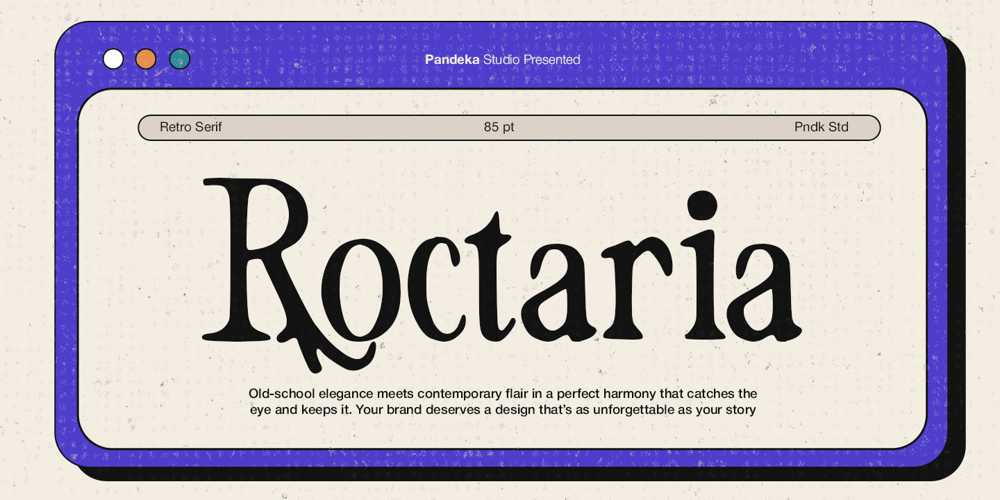
Roctaria
Roctaria font
Roctaria Font Family was designed by Sagara Nararya and published by Pandeka Studio. Roctaria contains 1 styles and family package options. Roctaria – Elegant Retro Serif TypefaceRoctaria is a vintage-inspired serif with a hand-drawn touch, blending classic typography with a timeless design. Its bold lettering and sophisticated style add retro elegance to any project. Perfect for vintage branding, packaging, classic posters, signage, apparel, stickers, and editorial layouts, Roctaria brings a unique, nostalgic aesthetic to your designs.What’s Included: Main Files formats 1 Style: Regular Full Character Set: Uppercase, lowercase, numbers, symbols, and punctuation Easy to Use: Works on both PC & Mac Compatible with Adobe Illustrator, Photoshop, Microsoft Word, Canva, and more PUA Encoded: Fully accessible without additional software Elegant Retro Serif Classic Typography Timeless Design Vintage Aesthetic Bold Lettering Sophisticated Style Unique TypefaceElevate your creations with Roctaria’s vintage charm! ✨Thank you and happy designing!Pandeka Studio